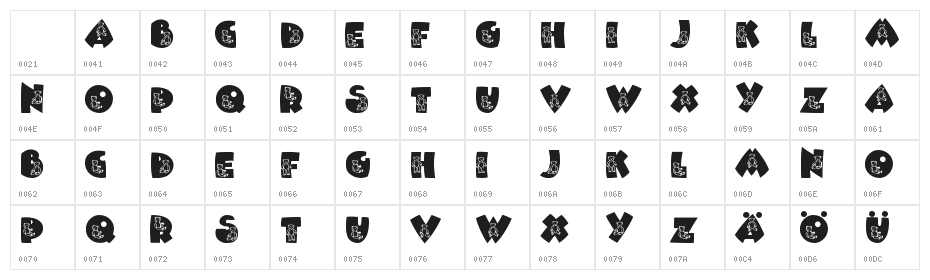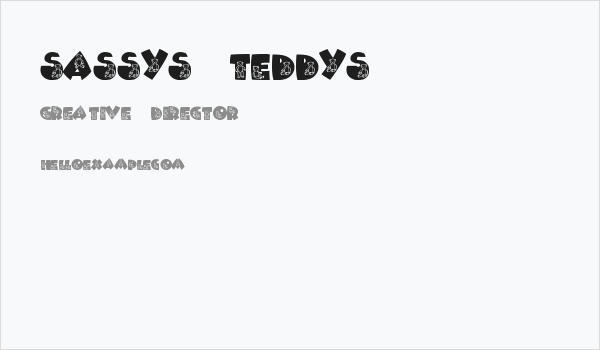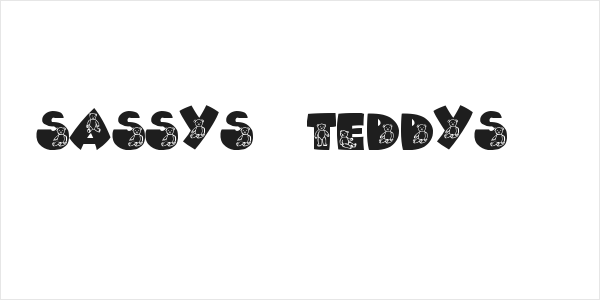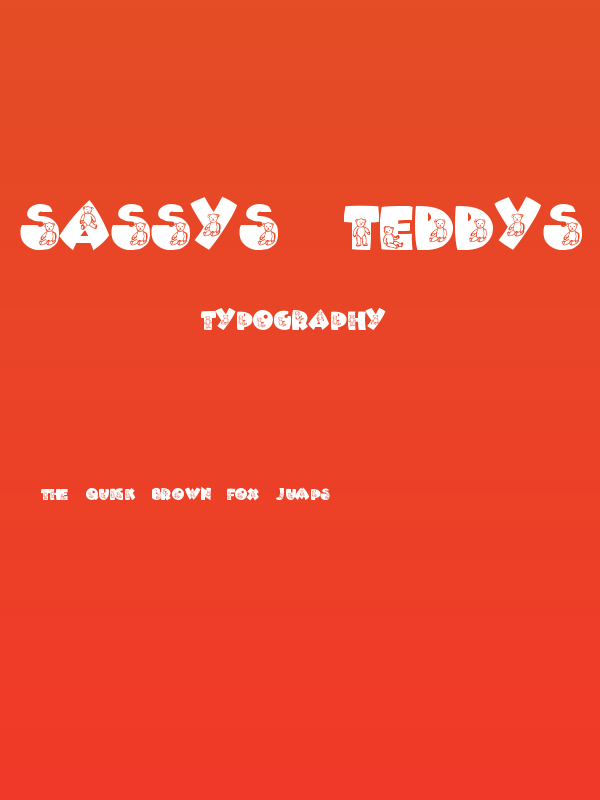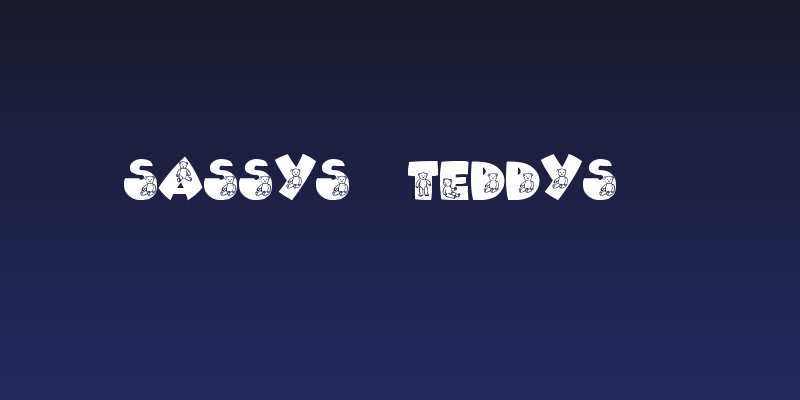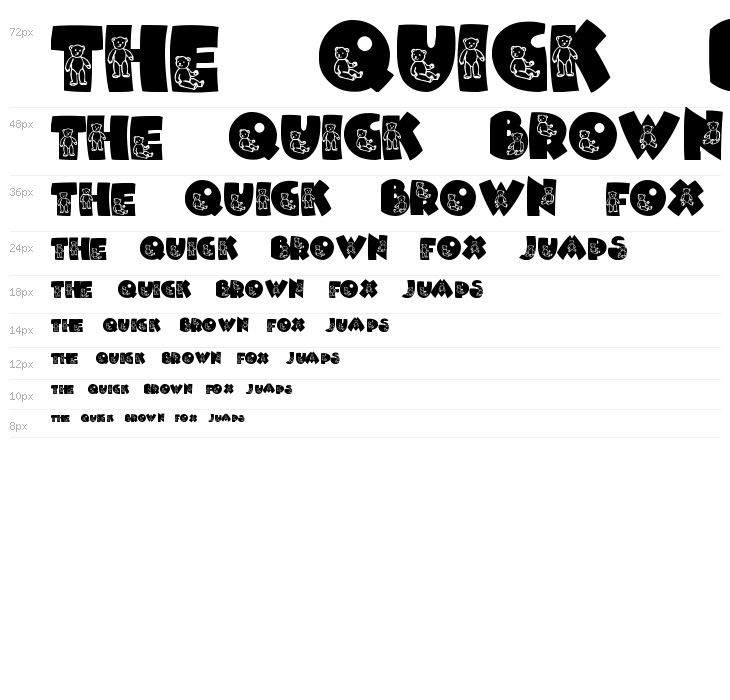
Sassys Teddys 2 Font
Sassys Teddys 2 Description
This playful and whimsical font features bold, blocky letters with charming teddy bear illustrations integrated into each character. The design is eye-catching and unique, making it ideal for projects that aim to convey a sense of fun and creativity. The teddy bears add a layer of warmth and friendliness, making the font particularly suitable for children's materials or playful branding. The characters are evenly spaced, ensuring readability while maintaining their decorative appeal. The font's boldness and distinct style make it stand out, perfect for capturing attention in various design contexts.
Overall StylePlayful, Whimsical
Proposed ProjectsIdeal for children's books, playful branding, party invitations, and educational materials.